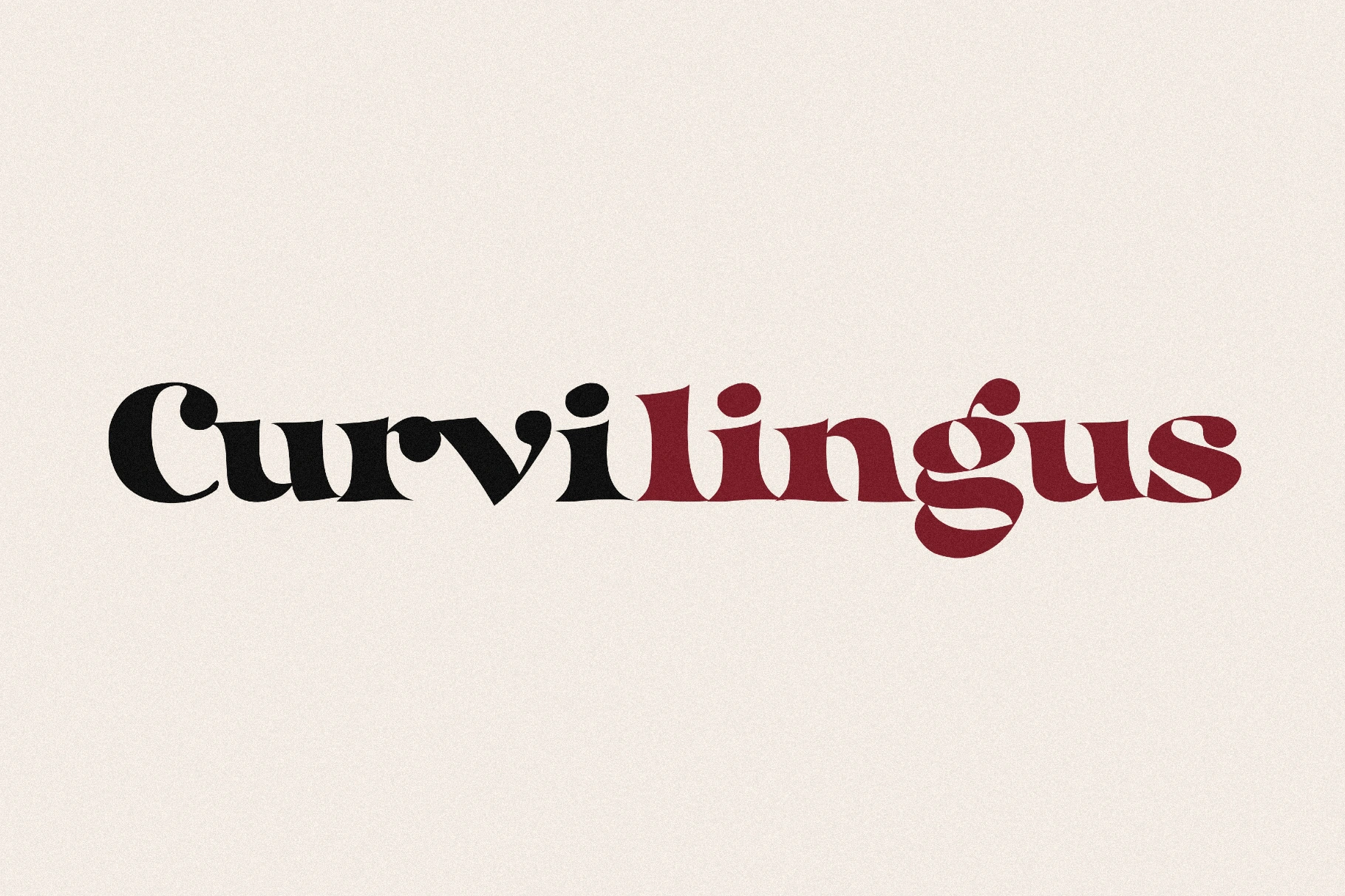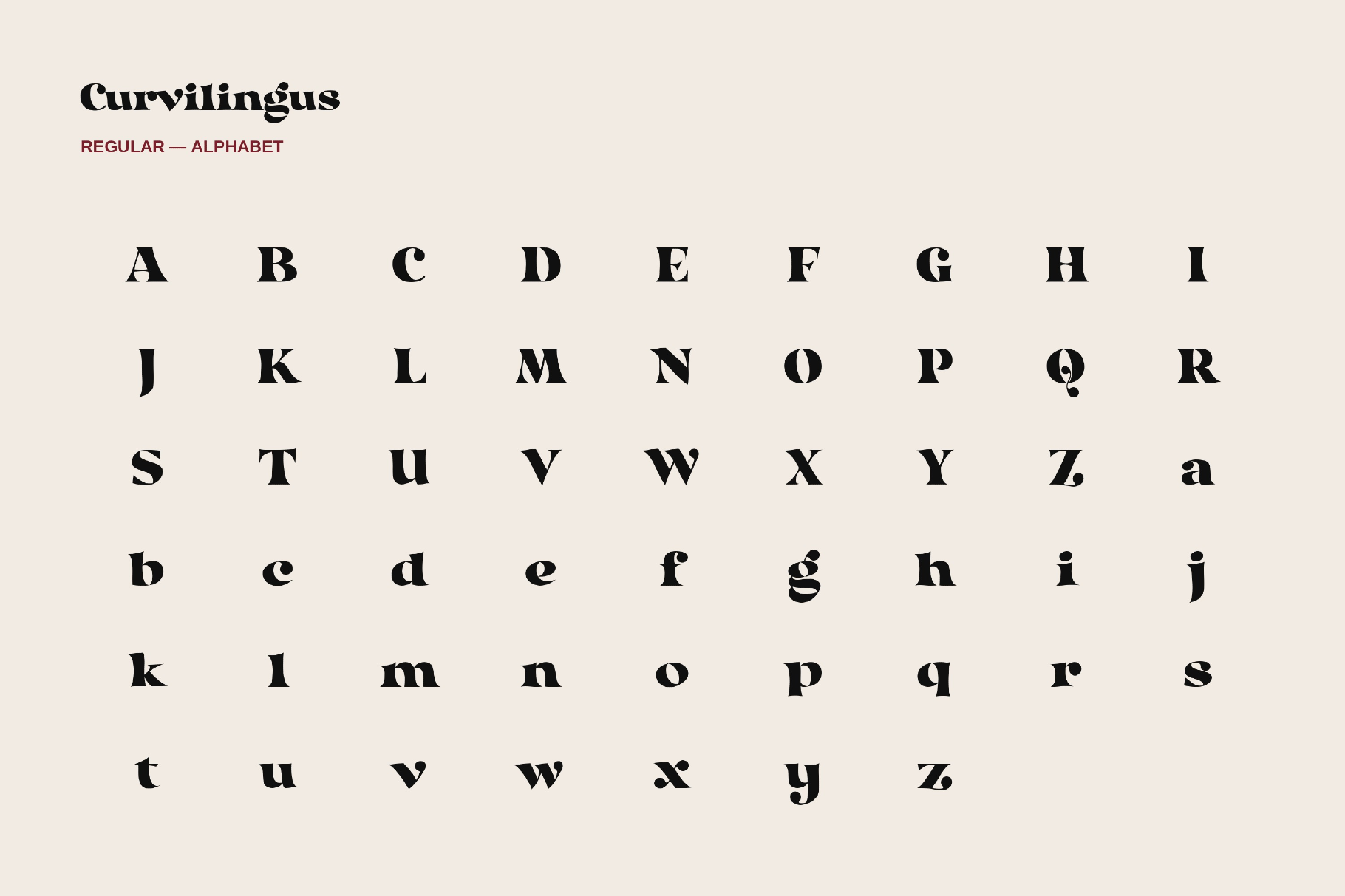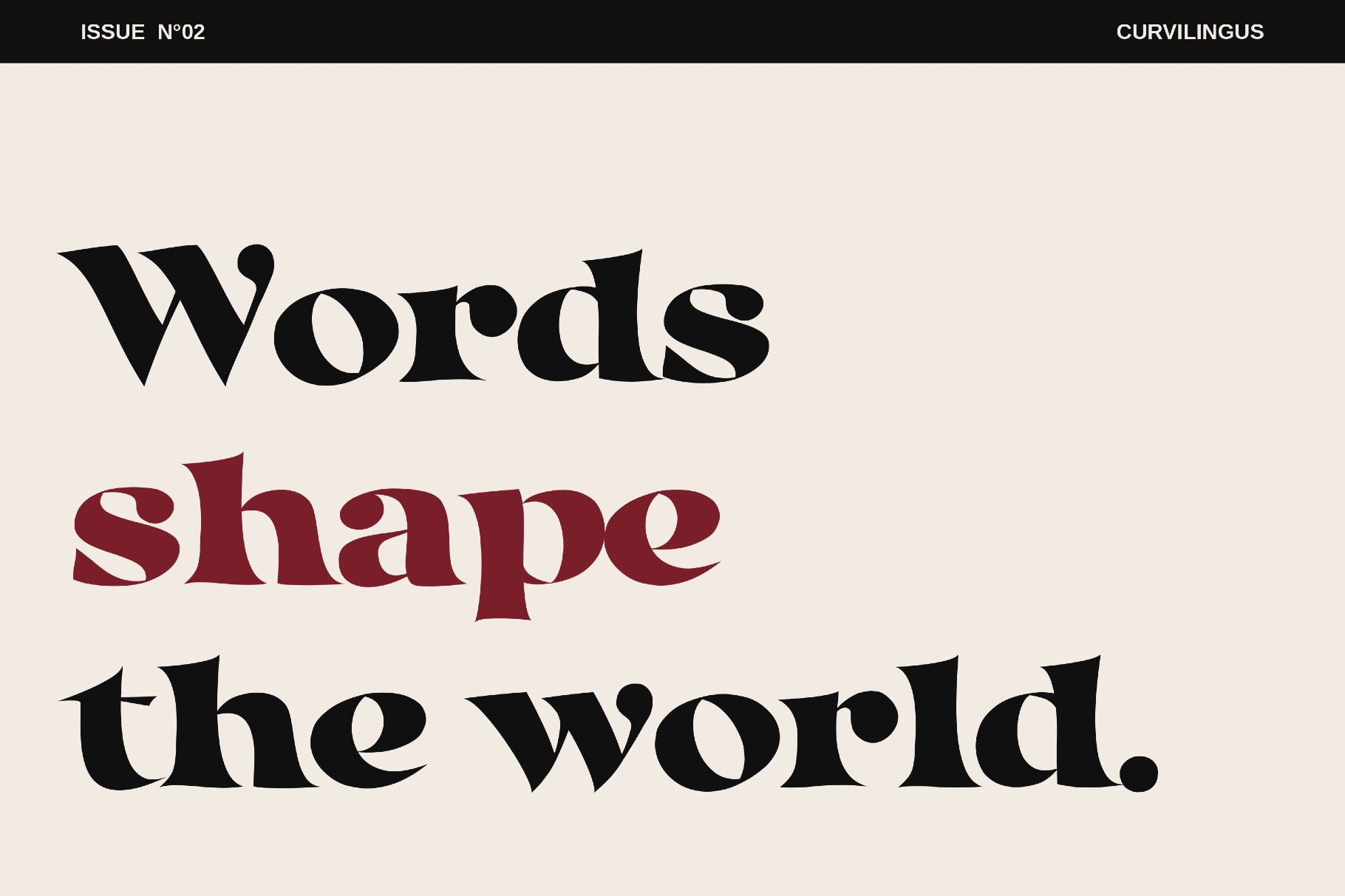
Curvilingus - Retro Poster Font
Curvilingus
Curvilingus coils into a voluptuous retro font with ribbon-like curves and playful theatrical wit. The script looks like 1970s lounge posters, psychedelic lettering, and cheeky comedy title cards. Its pin-up style suits cocktail menus, cabaret flyers, boutique packaging, album covers, party invitations, event posters, editorial titles, beauty labels, fashion graphics, and social media artwork.